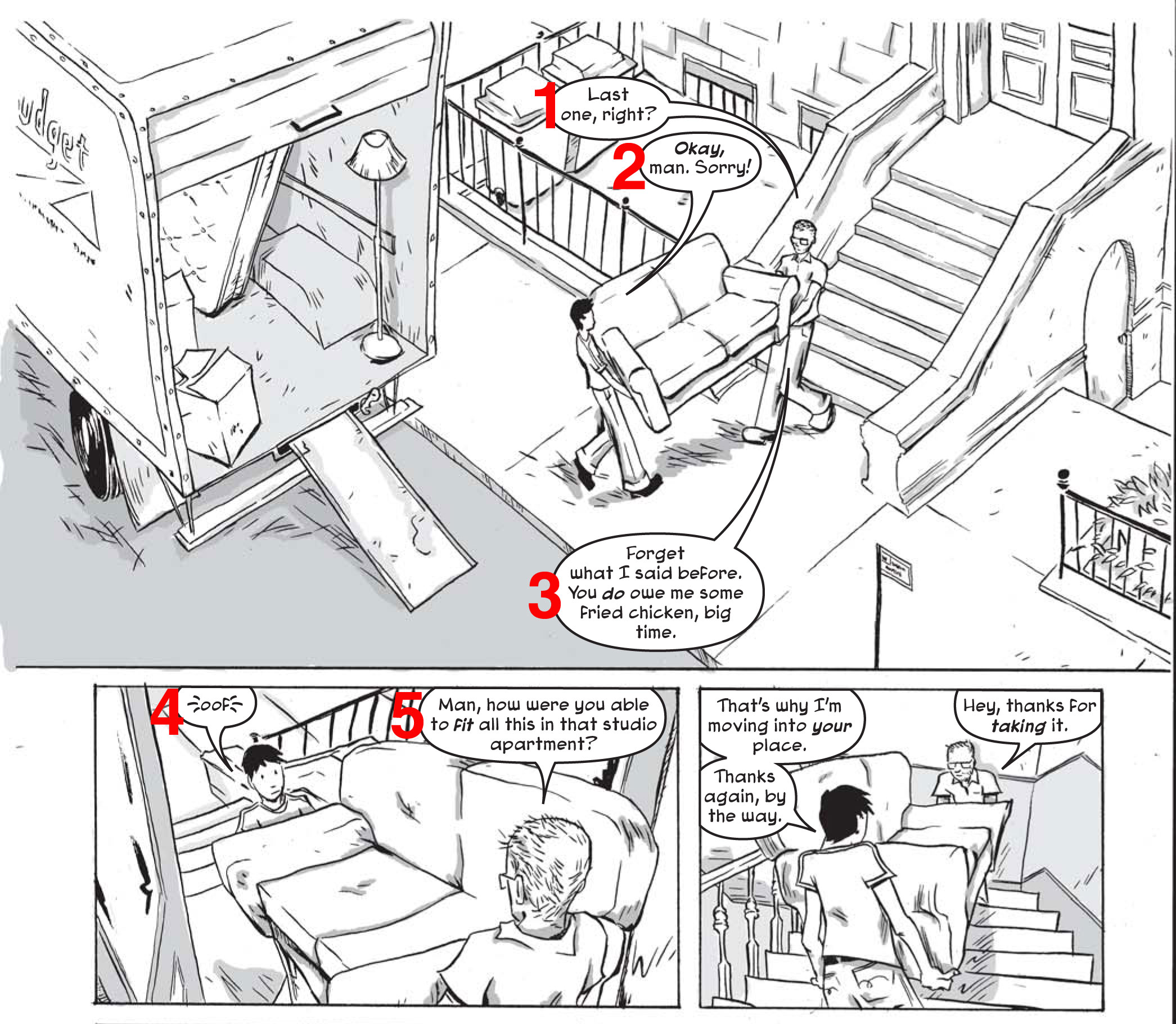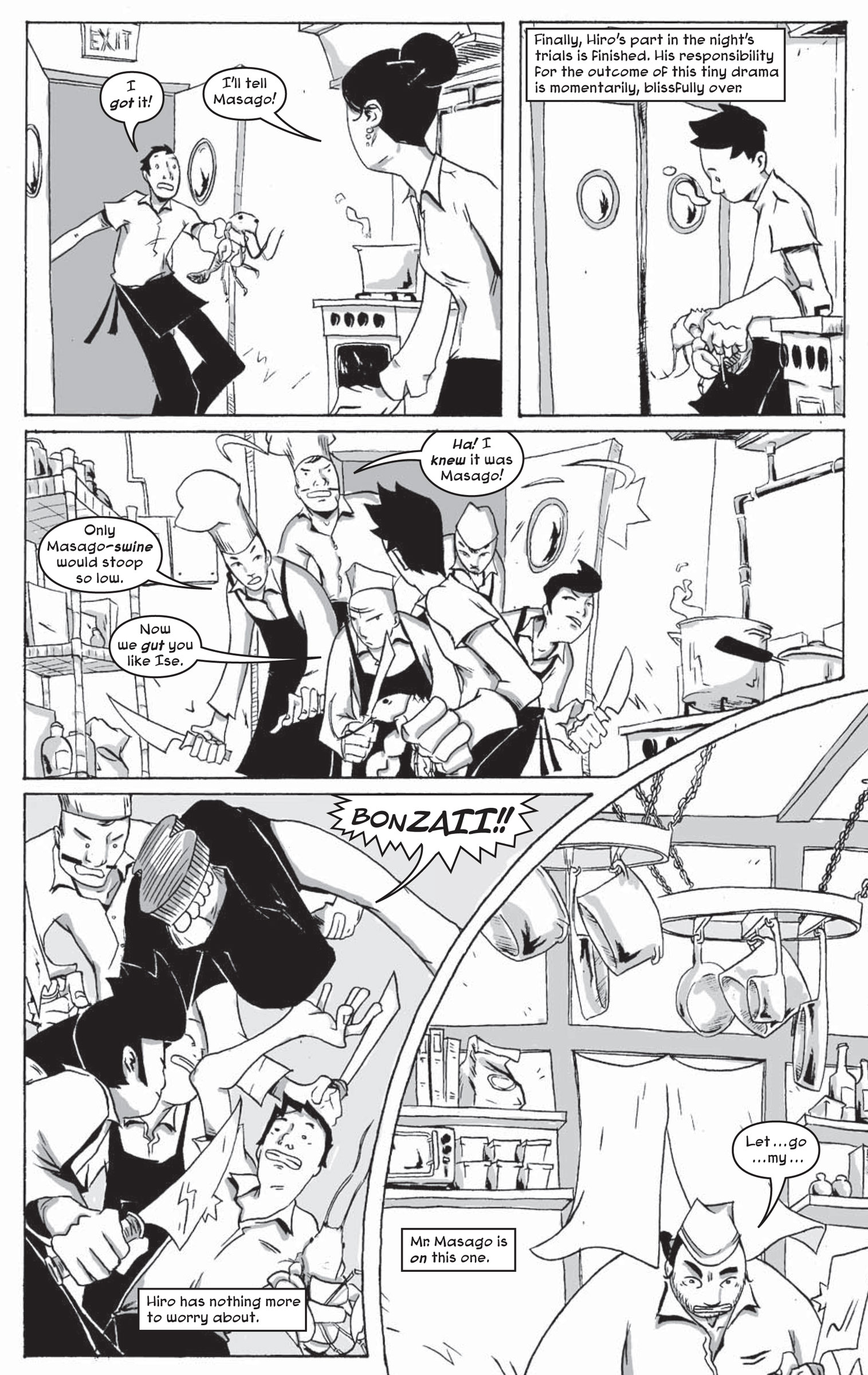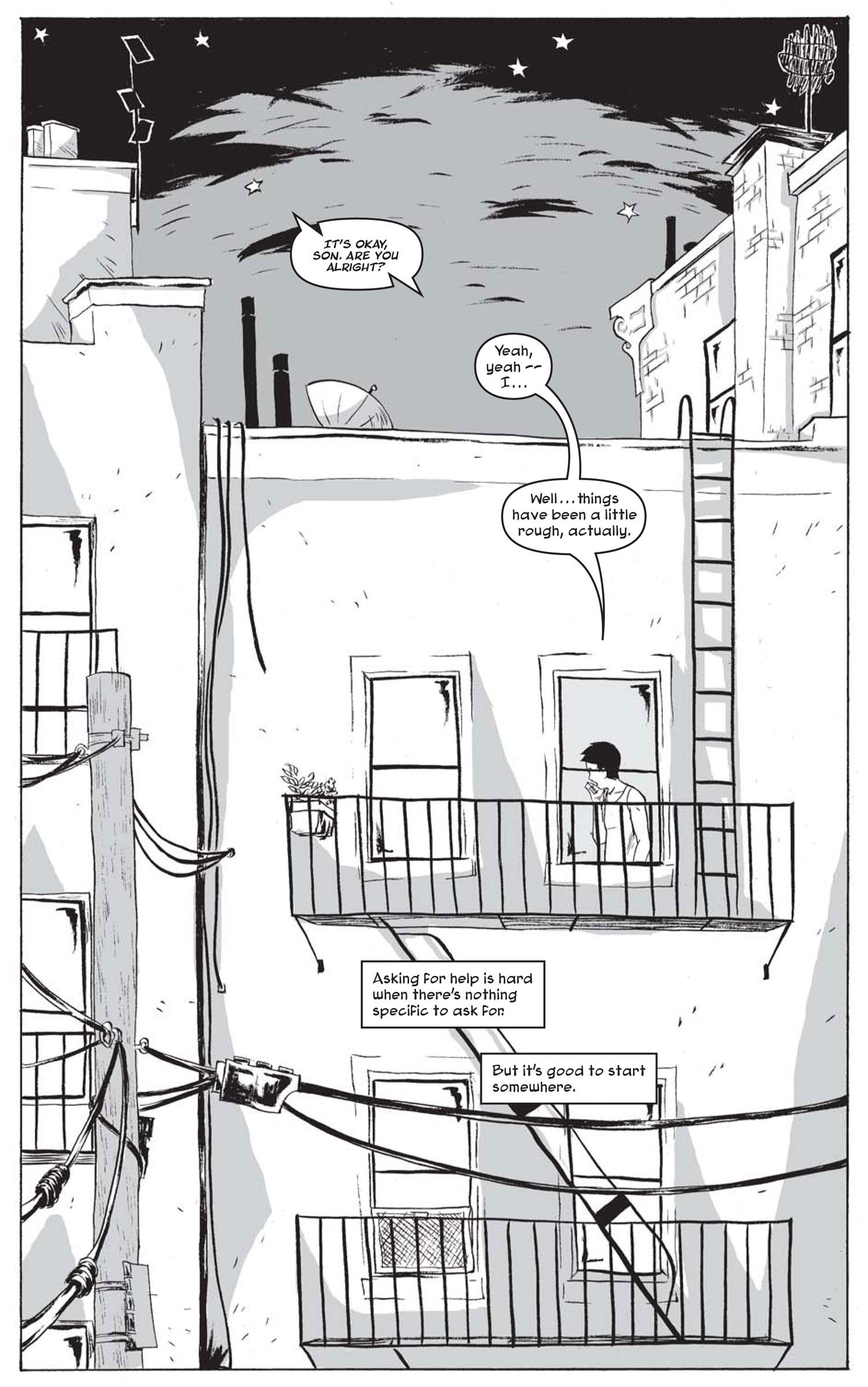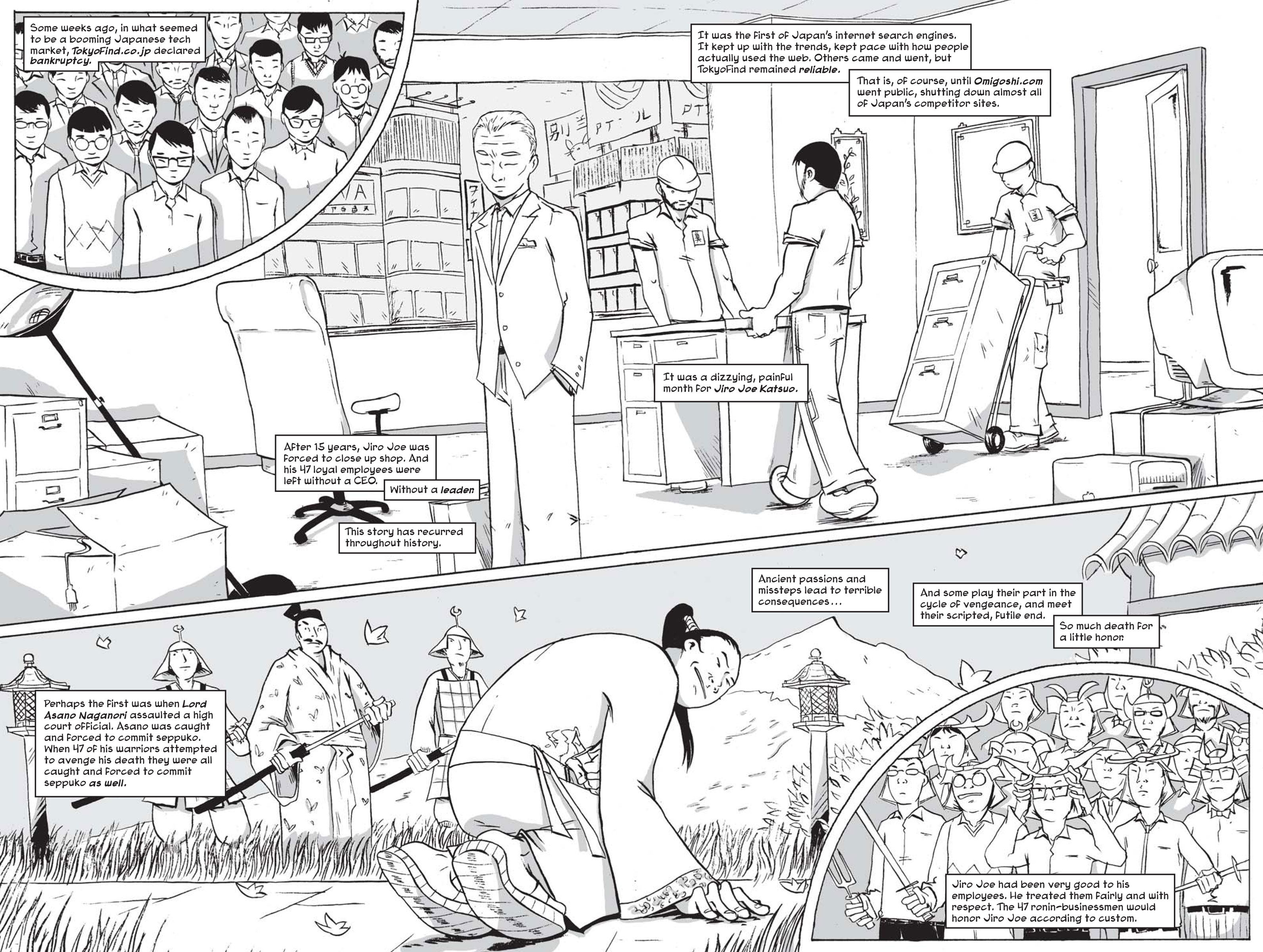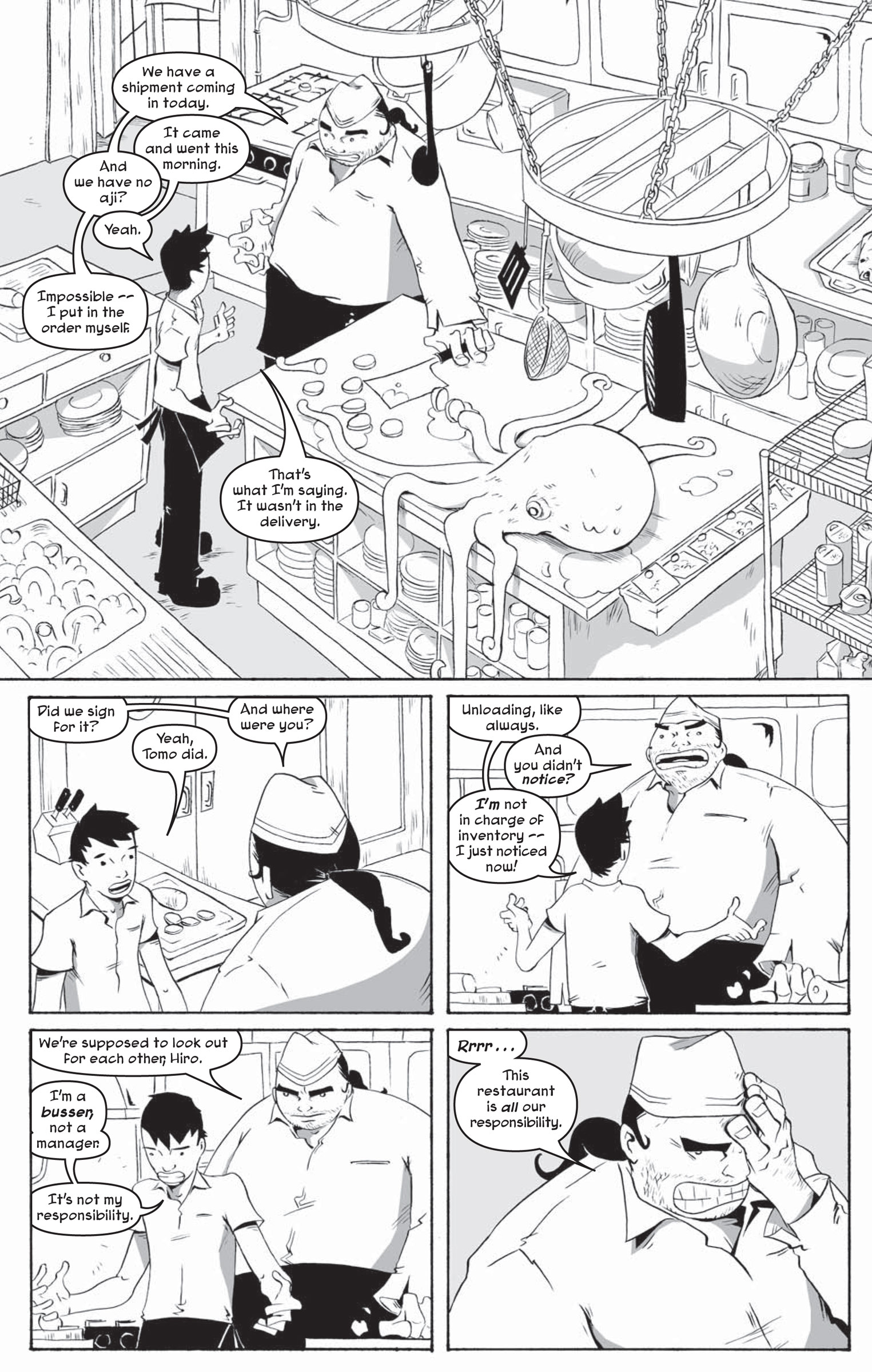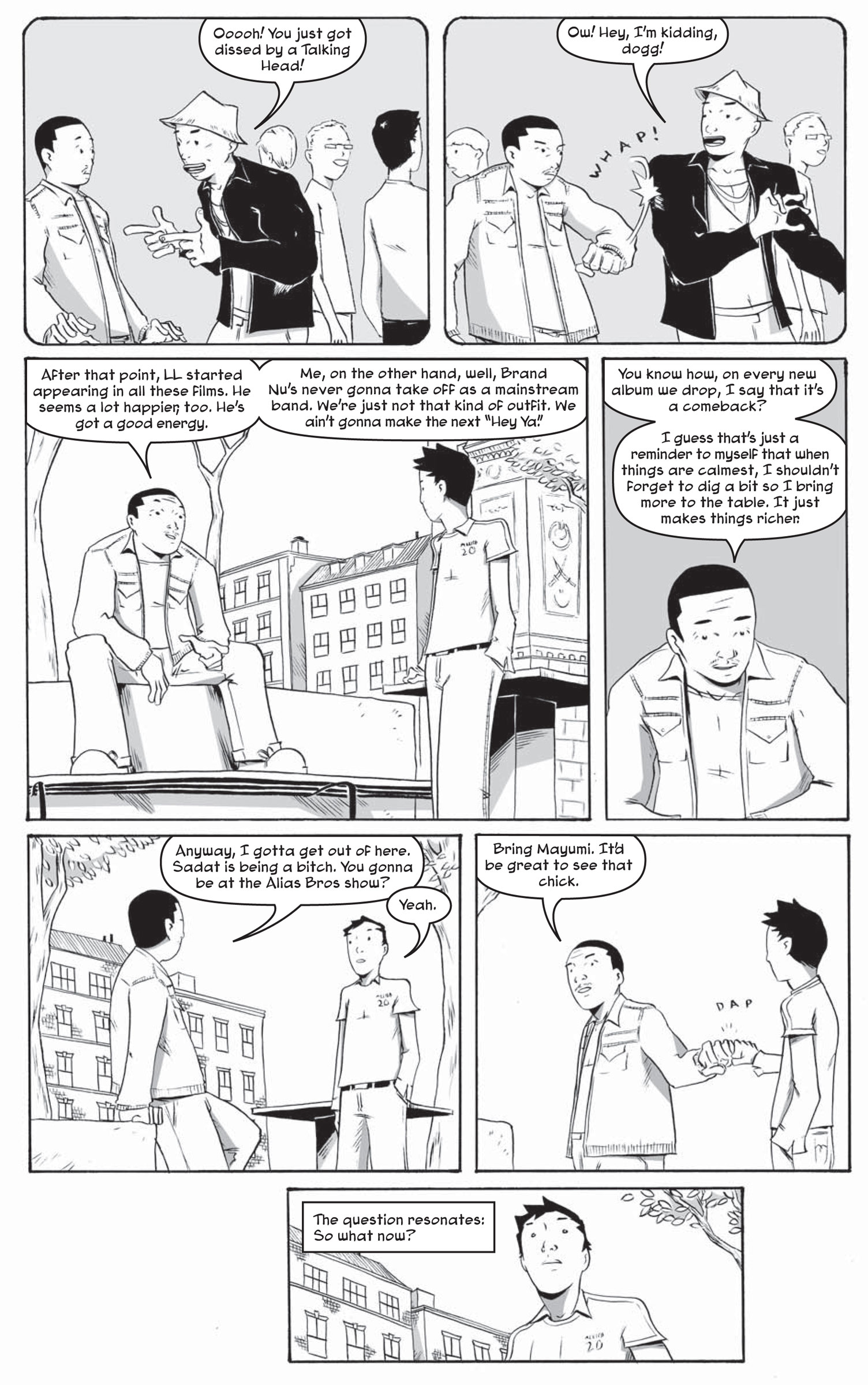
Follow Along With Me, Unless I Totally Mess Up
When I first started lettering I made the wise decision to avidly study what other letterers do and never stop. One of the first things I noticed is that letterers make stuff up all the time. Things that certain letterers find helpful become rules and often those rules become widely accepted in a kind of natural selection process as the art form evolves. I love this. When my early collaborators would ask me why I insisted on shoving as many balloons up to the top of the panel as I could I would simply say, “Because Richard Starkings says you have to,” and that would be good enough for both parties. One of my own unilateral decisions early on was that, since most people aren’t “trained” to read comics, I should always endeavor to make sure that consecutive balloons are geographically close to each other.
Now, this may be controversial (I admit I’ve never taken a poll) but I remember reading a post from Eddie Campbell somewhere along the way confirming my suspicion that people need more help following along with comics than we think they do (and the philosophies of Mr. Campbell, along with Mr. Starkings, should be adhered to, at least in my shop). People don’t naturally think, “Hmm, I’m at the end of the balloon. Maybe I should search for the next invisible ‘row’ of this panel, start at the left, and continue reading.” They will instead look for the next available block of text, the same way we all do when reading a magazine or looking at a wordy advertisement.
Lettering in this fashion means the page has to be designed as a single unit rather than a collection of individually designed panels. Artists already know this innately — most veteran comic book artists (especially Jim Steranko) will say that images in a panel must subtly lead the eye to the next panel. Letterers aren’t as keen to do this, mainly because we often have a massive challenge of fitting words and art together without deleting or changing anything within an almost impossible deadline, another 22-page job waiting right behind it. When facing a tough, wordy page, often the best a letterer can do is try to fit the words rather than design them. But when it works in our favor, when the art is already working for the story rather than against it, we can actually try to help the reader out a little.
But sometimes you can’t. When I lettered this page from Johnny Hiro, I spent an unconscionable amount of time trying to move Balloon 3 over to the left so it would be directly above Balloon 4. Of course, the further away it got, the more difficult it was to identify Johnny’s friend as the speaker, and the more it looked ridiculously forced. At some point, Fred must have told me to to just shut up and send the page to the printer, because the final version here naturally leads the reader to skip over Johnny’s “oof” and go right to Balloon 5. Though memory of our actual conversation is lost to the sands of time, I probably reasoned that no one would miss Johnny’s “oof” if they did accidentally read it backwards. This situation wasn’t anyone’s fault, just an accident of dialogue and character placement that couldn’t be changed — Fred’s layout here is perfect from an art perspective.
Later in the same issue we find what may be my least-favorite panel in the series, when Mr. Masago has to convince Johnny to steal a rival’s lobster. The panel presents three potentially conflicting lettering challenges: maintain the rhythm and pace (and, therefore, the humor) of their banter, make sure the characters’ posture and height differences are visible (since that also adds to the humor and meaning of the scene), and lastly, maintain the proper reading order of of the page.
Masago’s large chunk of text in Balloons 5 and 6 meant I couldn’t make better use of the blank space above Johnny’s head. Inserting Johnny’s response there would have interrupted Masago. Moving Balloon 6 to the left would have required a connecting tail across Masago’s face. So, with the basic balloon layout decided for me by the art, I went to work. The end result accomplishes the first two goals (the art is visible and the dialogue is cracklin’) but the readable page was lost in the process. So as not to block off Masago’s body and lose his grounding in the scene, the final balloon is in the lower left corner of the page, or, to put it another way, the complete OPPOSITE of where it should be if I mean to help the reader go to the next panel. Fred solved his problems with the page layout by placing Masago’s face at the extreme left of the last panel, making it impossible to put a balloon there and trick the reader into skipping over the panel above. Of course, I still managed to make it momentarily confusing. This is another case of the story needing to do what it needed to do, and we just hoped the reader would do a little more work than usual.
And (sigh) here’s an absolute mess of a page, lettering-wise. While writing this one I violated one of my foremost rules of making comics, which is to let the visuals tell the story, using the words to add texture and help it along. In our rush to cram a lot of meaning into eight pages I essentially wrote a prose story and asked Monica to illustrate it in a compelling way. She did exactly that, drawing meaning out of facial expressions and gestures that I barely even suggested in the script. Then, as the letterer, I tried to cram the words in to the available space. Some pages work better than others in this story but this one makes it nigh impossible to go to the next balloon. After Balloon 5, a reader could justifiably choose to skip right to Balloon 8, or even to Balloon 12, or just close the book and give up. I blame this one on a confluence of tight deadlines, collaboration across state lines via email, and, of course, some poor initial writing choices. If Monica and I had gotten together at a cafe at the start of the process she would have told me to write a different script and all would have been resolved.
But perhaps I’ve been misleadingly bleak by starting with the bad examples. Most of the time, regardless of the project, any good letterer can achieve a well-designed page with a few extra minutes of thought about how the reader will come to it. These pages from Johnny Hiro are some of my favorite examples of consecutive ballooning, design work that tells the story rather than simply using space:
Panel-by-panel they may not all seem to take advantage of every open area, but this is the thinking of someone trying to fit the words in. If you take in the entire page and follow along naturally, one balloon to the next, you start to see how the balloons act as guides. They ask your eye to linger over artwork you might otherwise skip, back and forth across images, leaping over dead space and further enlivening the live space, words and pictures harmonious at last.
3. A great read, and it’s with some shame I must admit that it’s something of an eye-opener for me. I’ve always thought in terms of empty space… oops.
• Thanks, Nina! I’m glad it shed some light, but hey, no shame at all. I’m not exaggerating when I say it took me about five years of bad (OK, let’s call it “practice”) lettering before I even noticed the “fitting vs. designing” issue, let alone try to conquer it.